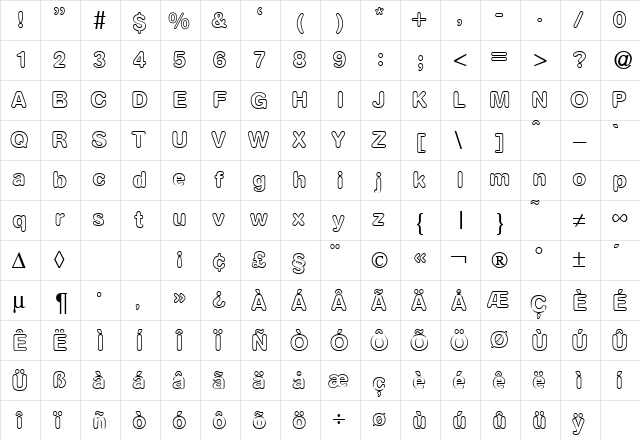
AkzentRoundedOut Bold Font Preview
AkzentRoundedOut Bold
AkzentRoundedOut Bold Font Details
Design Context for AkzentRoundedOut Typeface
AkzentRoundedOut softens its letterforms with rounded terminals, giving it an approachable, friendly quality that works well in consumer-facing and digital contexts. Its bold stroke weight gives it real presence on the page.
A natural fit for tech startups, health and wellness brands, children's products, and friendly consumer apps.
Font Pairing: Pairs well with a rounded or humanist sans for body copy, maintaining the friendly tone without relying on AkzentRoundedOut to carry extended reading.
Pro Tip: Pair AkzentRoundedOut with a geometric sans for a balanced system — the rounded softness works as a warm counterpoint to harder-edged companions.